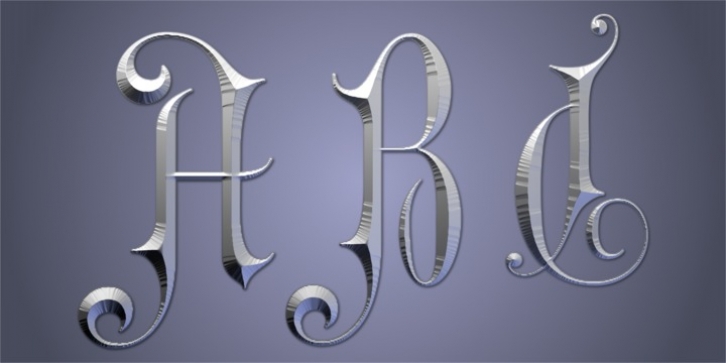
Gothic Initials Four is part of a three font set including Gothic Initials Five and Gothic Initials Six.
Each Gothic Initials font was inspired by the beautifully-written gothic scripts of medieval scribes.
Each font contains the upper case letters A through Z under both the character set and shift+character set. These fonts are intended for use as initials, monograms, drop caps or wherever fancy letters are desired.